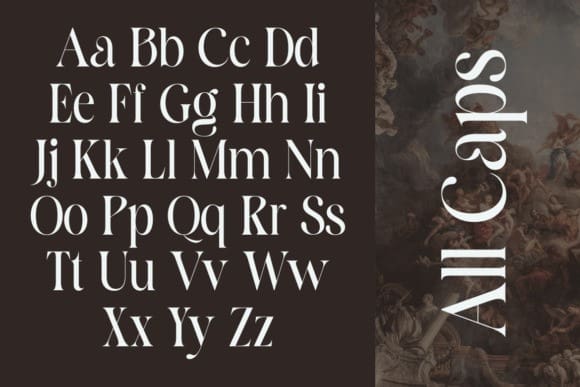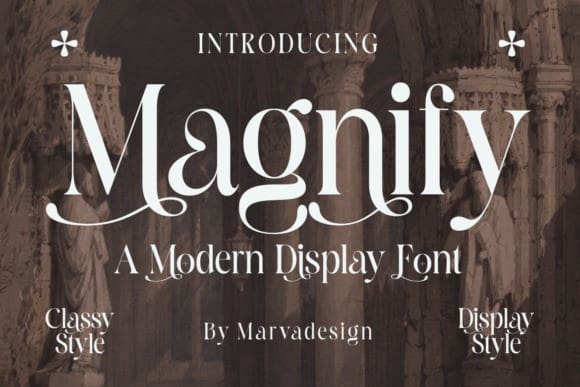
Magnify Font
Magnify Font is a sleek and modern display font that brings a contemporary flair to your projects. With clean lines and a stylish design, it adds a touch of sophistication to any text. Whether you’re creating bold titles or eye-catching headers, Magnify’s modern aesthetic ensures a polished and professional look. Upgrade your design with this versatile font that effortlessly combines simplicity with a trendy edge.